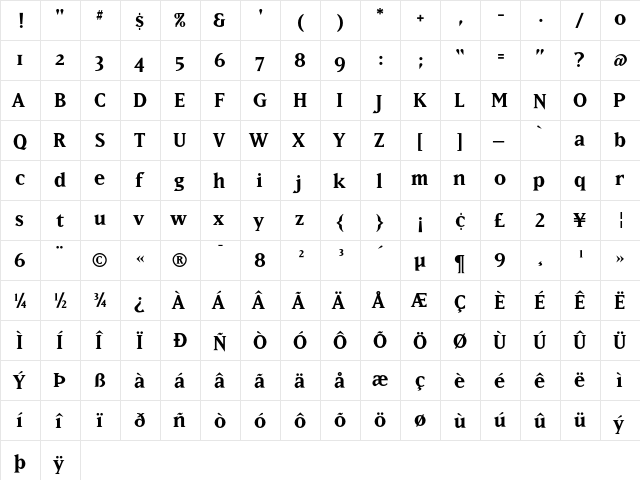
MatrixBold Regular
Design Context for MatrixBold Typeface
MatrixBold offers clean, dependable letterforms without strong stylistic allegiance, making it a practical choice for designers who need flexibility. The heavy weight commands attention and anchors typographic hierarchies.
Pro Tip: Use MatrixBold in both headline and body roles to test its range before committing to a single application.